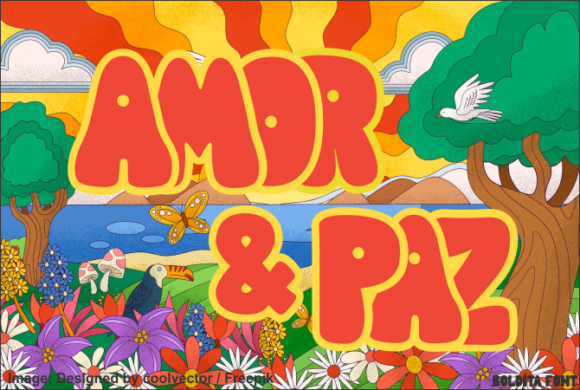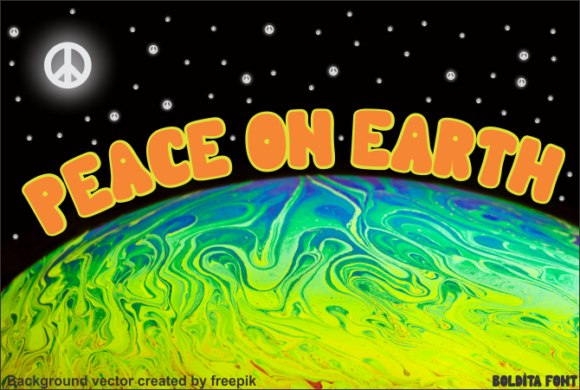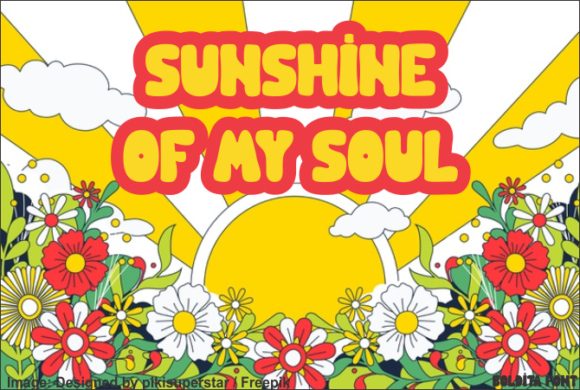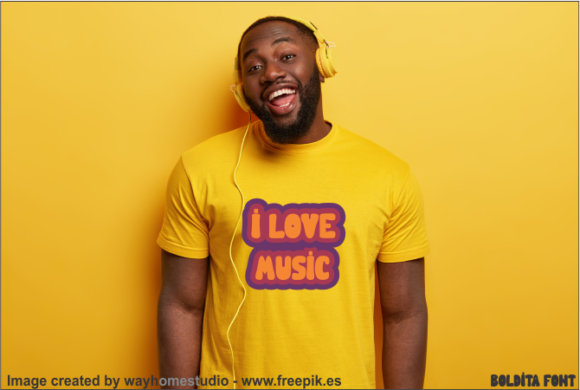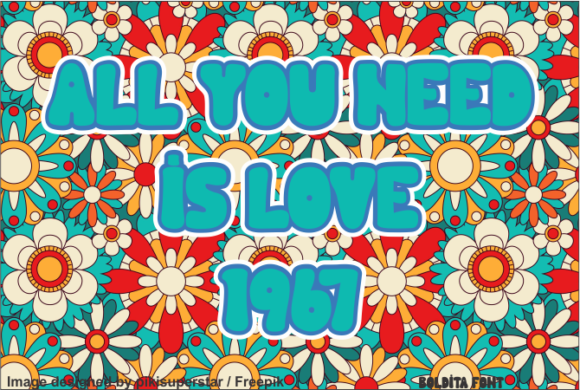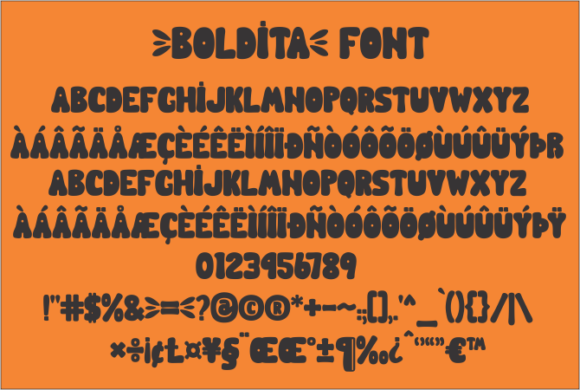
The Boldita Font: A Playful Addition to Your Design Toolkit
I’ll never forget the time I was working on a children’s activity book project, and I just couldn’t seem to find the right font. The design needed something fun, playful, and engaging, but everything I tried seemed either too boring or too over-the-top. That’s when I stumbled upon the Boldita font, and it completely transformed my design. In this article, I’ll share my experience with Boldita, its features, and how to make the most of it in your designs.
A Personal Review of Boldita
So, what makes Boldita so special? Here are a few things I love about this font:
- ✨ Playful and fun: Boldita embodies the perfect blend of playfulness and authenticity, making it ideal for children’s activity books, school projects, and more.
- ✅ Easy to read: Despite its chunky, lettered design, Boldita is surprisingly easy to read, even at smaller sizes.
- 💡 Versatile: This font can be used for headings, titles, and even short paragraphs, making it a great addition to any design project.
Of course, no font is perfect, and Boldita does have a few quirks:
- 🤔 Limited use in body text: While Boldita is great for headings and titles, it may not be the best choice for longer body text due to its chunky design.
- ⚠️ May not be suitable for formal designs: Boldita’s playful nature makes it better suited for informal designs, such as children’s books, posters, or flyers.
One of the best things about Boldita is its OpenType features and glyphs. Here are a few ways to make the most of these features:
- Stylistic alternates: Boldita offers a range of stylistic alternates that allow you to customize the font to suit your design needs.
- Glyphs: The font includes a range of glyphs, including accents, punctuation, and symbols.
The Story Behind Boldita
Boldita was designed with one goal in mind: to create a font that embodies playfulness and authenticity. The designer wanted to create a font that would be perfect for children’s activity books, school projects, and other fun designs. With its chunky, lettered design and range of OpenType features, Boldita is sure to bring a smile to your face and a touch of personality to your designs.
- Q: What is Boldita font?
- A: Boldita is a cute and fun display font designed for children’s activity books, school projects, and other fun designs.